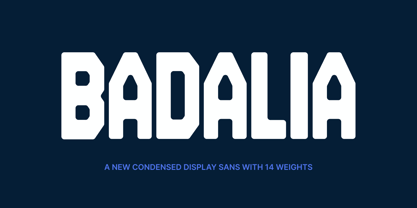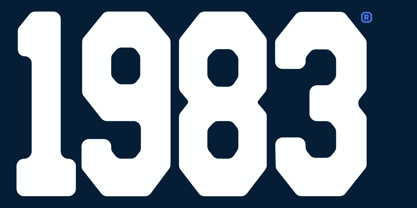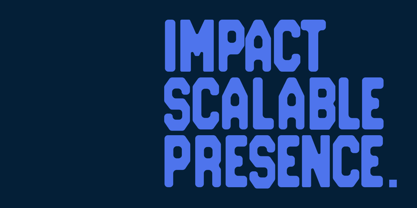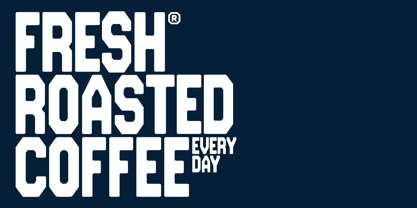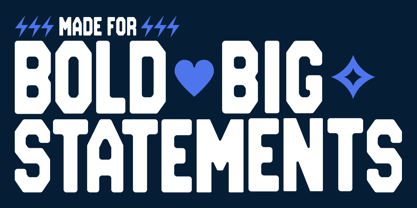
Badalia
The Badalia Font Family was designed by Alex Haigh and published by HyperFluro. Badalia contains 14 styles and family package options. More about this family
Badalia is a geometric display typeface designed and released by Hyperfluro, an independent UK-based type foundry specialising in distinctive, commercially-ready typeface systems. Built for the demands of modern branding, editorial design, and digital-first creative work, Badalia is a typeface that commands attention without sacrificing usability.
Badalia's letterforms are rooted in geometric construction clean verticals, confident horizontals, and subtly rounded terminals that soften what could otherwise feel mechanical. The result is a typeface that reads as bold and contemporary without leaning into the cold rigidity of pure geometric fonts. It has character. It has weight. And across its 13-weight range, it adapts.
The uppercase is assertive and tightly proportioned, making Badalia a natural choice for logotypes, brand wordmarks, and short headline copy where impact is the priority. At lighter weights One through Five the design opens up into something more editorial and typographically flexible, working well for subheadings, pull quotes, and display text that needs presence without aggression.